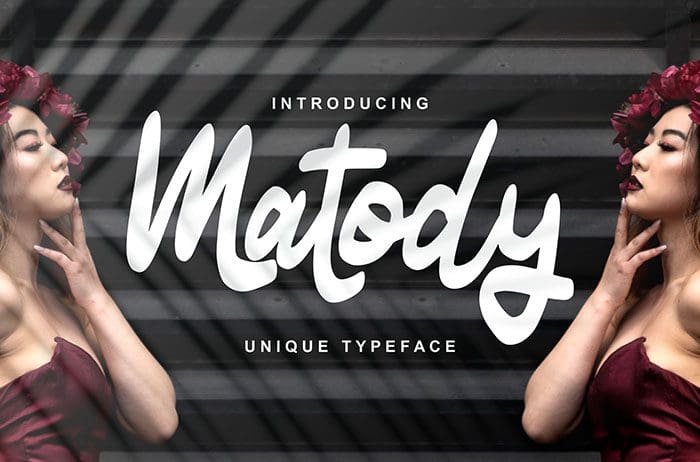
Matody Display Font
Matody Display Font is inspired by classic typography and brings its own unique style to any design project. This font is best suited for headlines of all sizes. This font free for personal use only, if you need commercial use and full version please download in here.